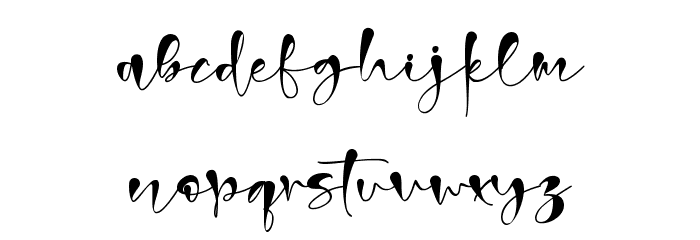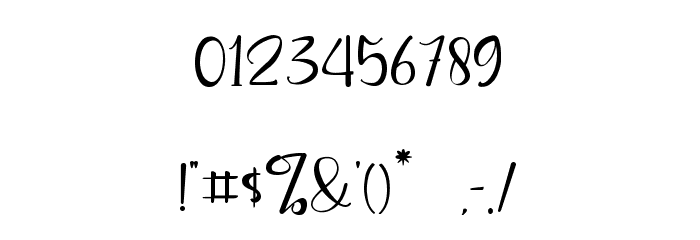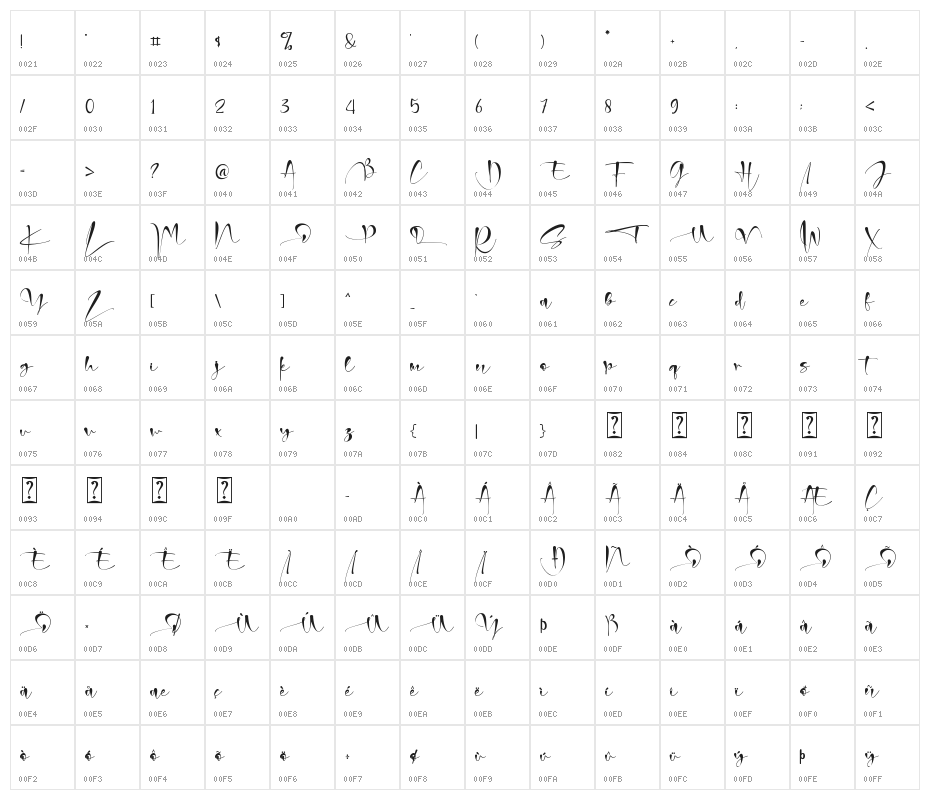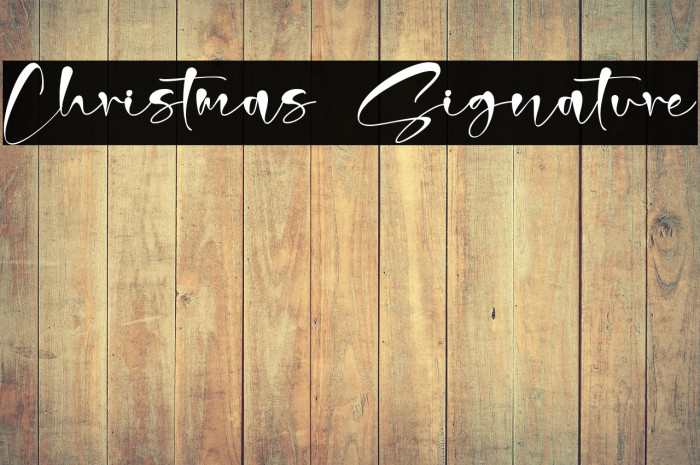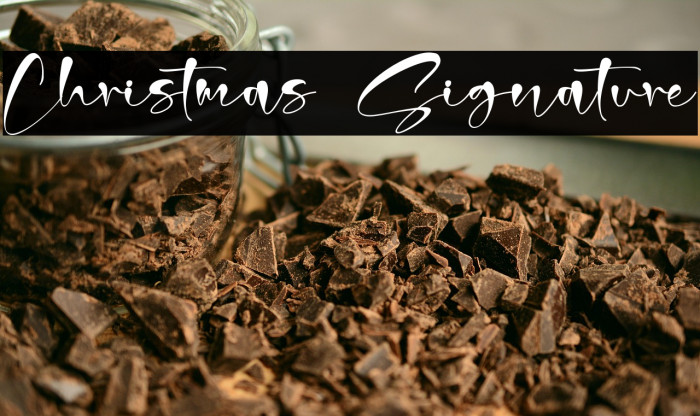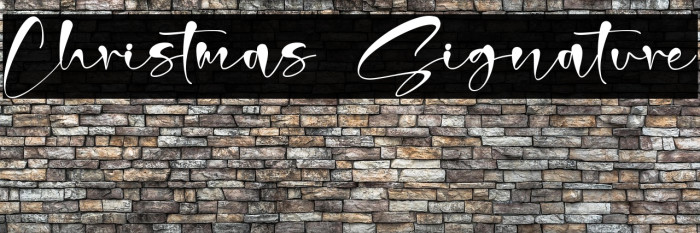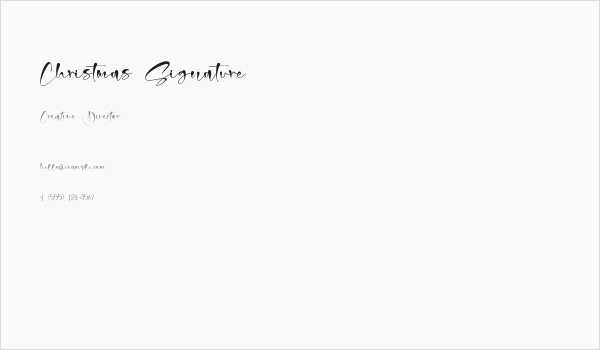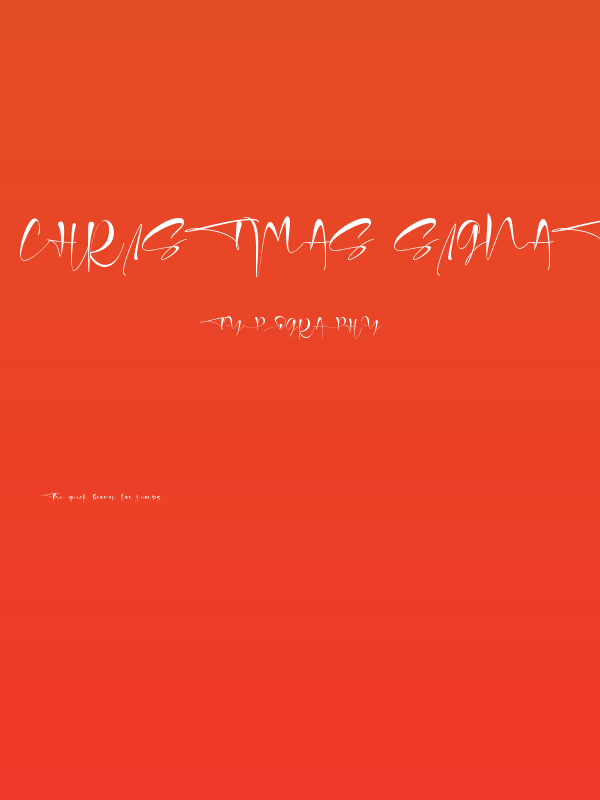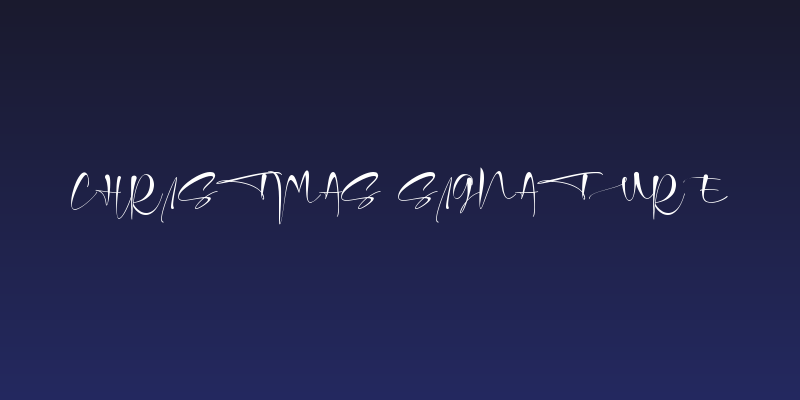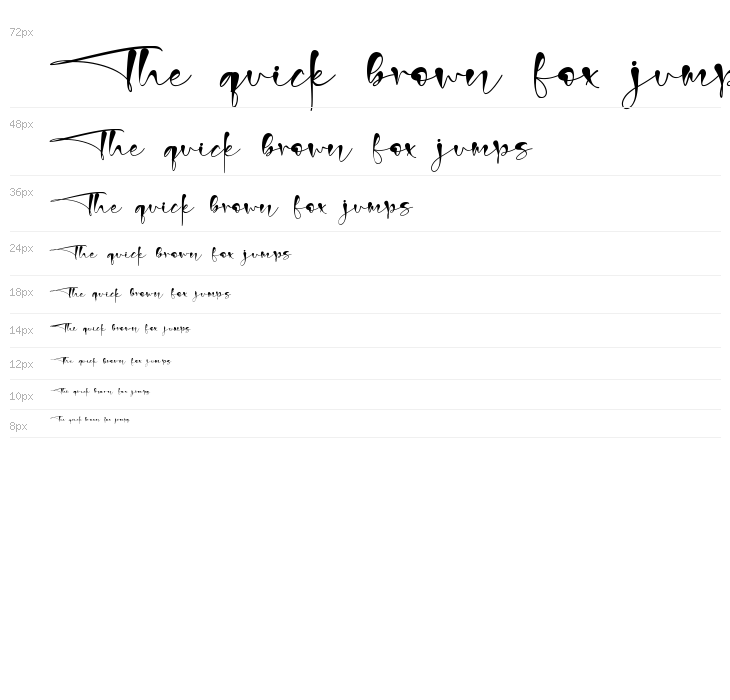
Christmas Signature Font
This font exudes a whimsical and elegant charm, characterized by its flowing, cursive script style. The uppercase letters are particularly ornate, with sweeping lines and loops that give a sense of movement and grace. The lowercase letters maintain a consistent style, offering a harmonious blend of thick and thin strokes that add to its decorative appeal. Numbers and special characters are designed to match the overall aesthetic, ensuring a cohesive look across all text elements. This font is perfect for adding a personal, handwritten touch to any project, making it ideal for invitations, greeting cards, and festive designs.
A whimsical, cursive script font with elegant, flowing lines.
- Proposed Projects: Ideal for wedding invitations, holiday cards, branding, and decorative signage.
- Use Case: Logos, Invitations, Decorative text